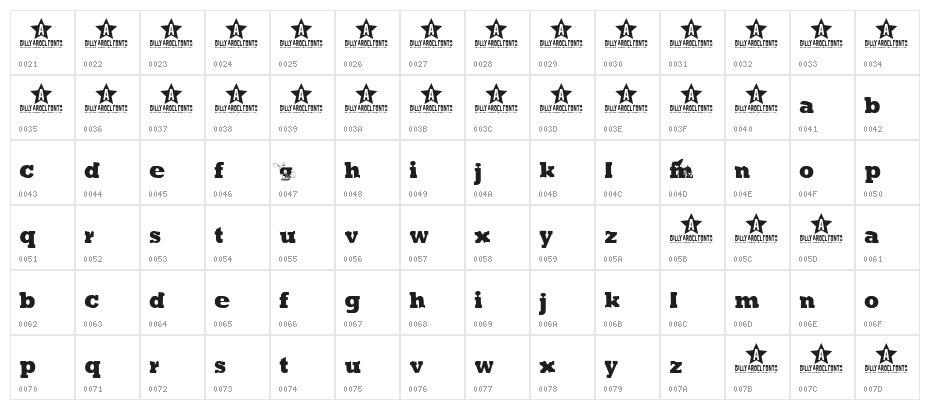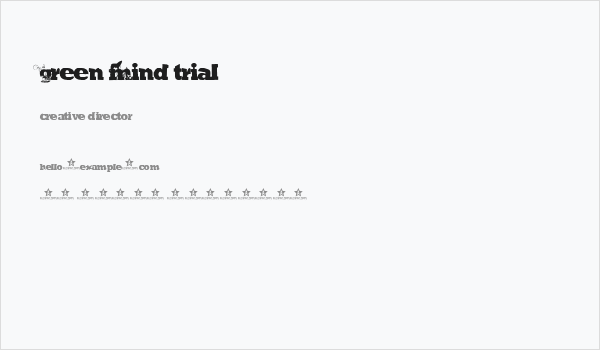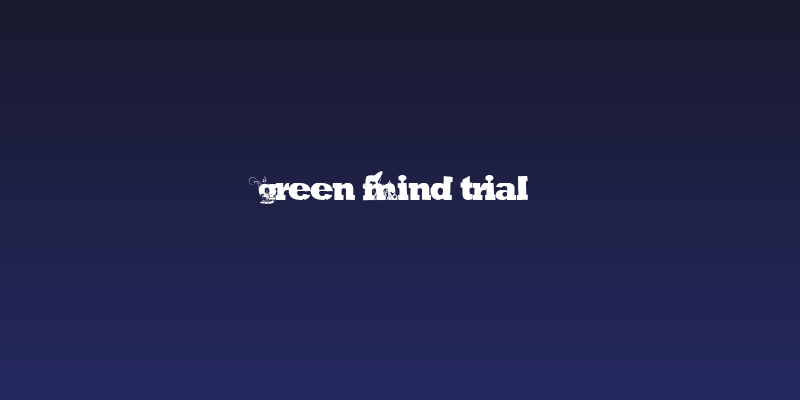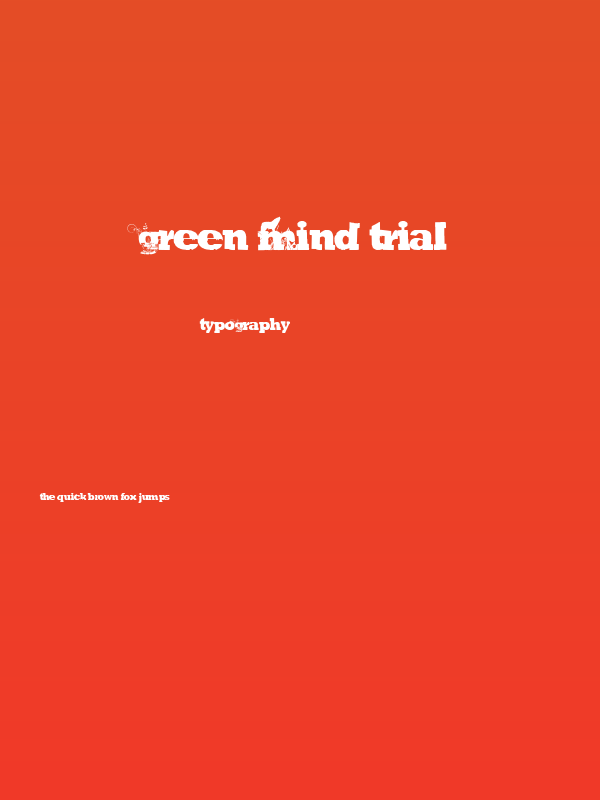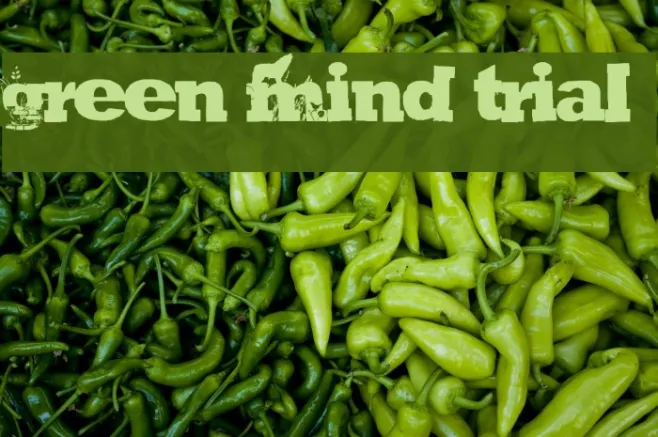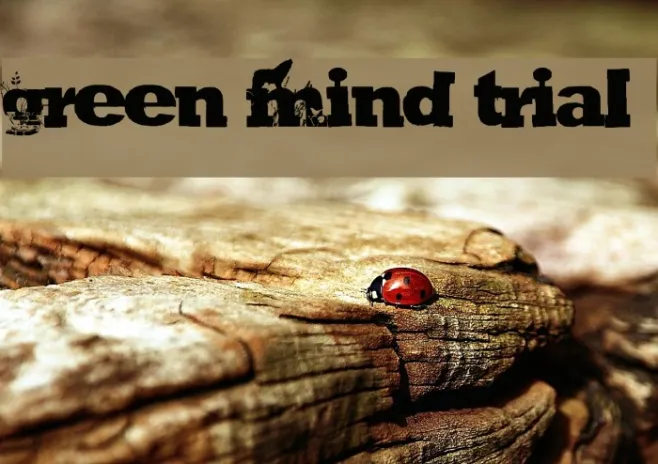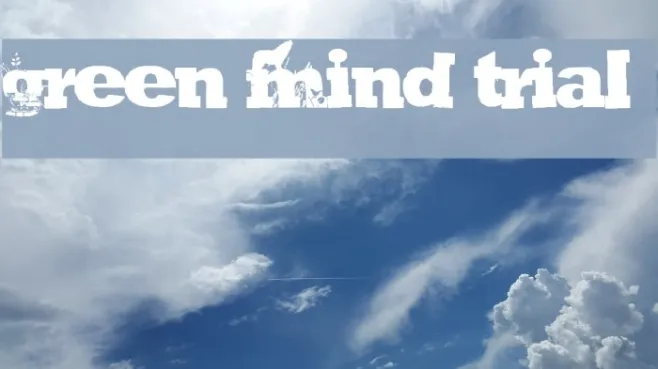
GREEN MIND TRIAL Font
GREEN MIND TRIAL Description
This font exhibits a bold and impactful style, characterized by thick, heavy strokes that convey a strong presence. The letters are uniformly wide, with a slightly condensed appearance, giving it a robust and compact look. The edges are sharp and clean, enhancing the font's modern and assertive aesthetic. It features a consistent baseline and x-height, ensuring readability and uniformity across different text sizes. The font's boldness makes it suitable for attention-grabbing headlines and titles, while its clear structure maintains legibility.
| Proposed Projects | Ideal for posters, headlines, branding materials, and any design requiring a bold statement. |